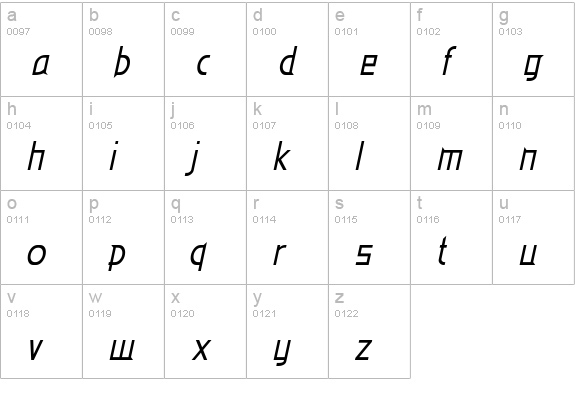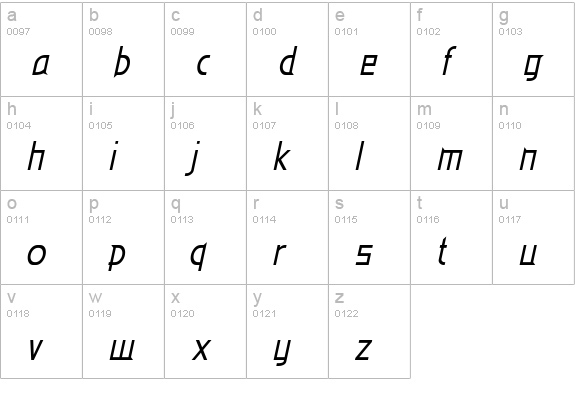
Eden Mills Italic is a distinctive, italic variant in the Eden typeface family \xE2\x80\x94 well suited to design and typography projects.
Eden Mills Italic is a stunning and elegant font that exudes sophistication and charm. With its delicate curves and graceful strokes, this font is perfect for adding a touch of class to any design project. The italicized form of Eden Mills adds a unique and stylish flair, making it ideal for headings, titles, and special emphasis. Its smooth and flowing lines create a sense of movement and vitality, capturing the attention of viewers and leaving a lasting impression. This font is not only visually appealing but also incredibly versatile. It can be used for a wide range of design purposes, from branding and logo design to invitations, posters, and even website headers. Its ability to adapt to various styles and contexts makes it a valuable asset for any designer or creative professional. One of the best things about Eden Mills Italic is that it is available for free download at FontsMarket.com. This means that you can enhance your designs with this beautiful font without any cost. Whether you're a seasoned designer or just starting out, having access to high-quality fonts like Eden Mills Italic can greatly elevate the overall aesthetic of your work. So why wait? Discover the beauty and versatility of Eden Mills Italic today and unleash your creativity with this freely available font. Download it now at FontsMarket.com and take your designs to new heights.